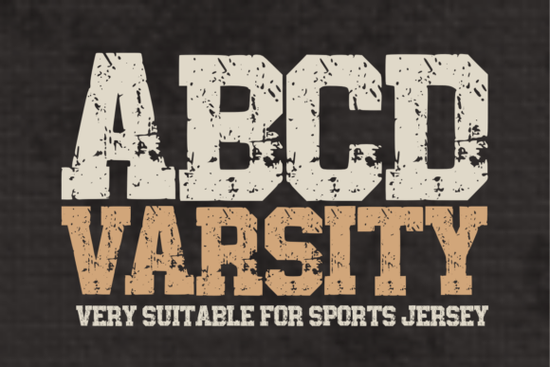
When you're looking for a font that embodies the spirit of classic sports and collegiate style, Abcd Varsity Font is a great choice. This bold, distressed sport font brings a sense of tradition and strength to any design project, making it perfect for sports jerseys, team apparel, and more.
What Makes Abcd Varsity Font Stand Out?
Abcd Varsity Font is designed with a unique, weathered texture that gives it an authentic vintage look. The thick, geometric letterforms and rugged grit make it a standout choice for anyone who wants to add a touch of nostalgia and athletic energy to their designs. Whether you're working on a college branding project or designing streetwear, this font delivers a championship performance.
Perfect For Sports and Team Apparel
If you're involved in creating designs for sports teams, Abcd Varsity Font is a natural fit. Its bold, impactful style makes it ideal for sports jerseys, team logos, and other athletic wear. The font's classic, worn-in look adds a sense of history and tradition, which can be especially appealing for established teams and clubs.
Ideal for College and University Branding
Colleges and universities often seek to capture a sense of heritage and pride in their branding. Abcd Varsity Font does just that with its traditional, yet modern feel. It’s perfect for creating banners, posters, and promotional materials that need to convey a strong, academic identity.
Streetwear and Merch Design
For designers and creators in the streetwear and merchandising space, Abcd Varsity Font offers a versatile and stylish option. Its bold, geometric shapes and distressed texture make it a popular choice for t-shirts, hats, and other merchandise. The font’s rugged look adds a cool, edgy vibe to any design, making it a favorite among streetwear enthusiasts.
Gym and Fitness Graphics
Fitness and gym graphics often require a strong, motivational tone. Abcd Varsity Font fits the bill perfectly with its robust, impactful appearance. Use it for gym signs, workout plans, and promotional materials to inspire and motivate your audience. The font’s bold, clear lettering ensures that your message stands out and resonates with fitness enthusiasts.
Trophies, Posters, and Event Banners
Whether you’re designing trophies, event posters, or banners, Abcd Varsity Font adds a touch of class and tradition. Its classic, weathered look makes it a perfect choice for recognizing achievements and celebrating special events. The font’s strong, readable characters ensure that your message is clear and memorable.
Vintage-Style Social Media Posts
In the age of social media, standing out is key. Abcd Varsity Font can help you create eye-catching, vintage-style posts that grab attention. Its distressed, classic look is perfect for adding a nostalgic touch to your social media content, whether you’re sharing a throwback photo or promoting a new product.
How to Use Abcd Varsity Font Effectively
- Choose the Right Context: Make sure the font aligns with the overall theme and purpose of your design. It works best for projects that benefit from a classic, sporty, or vintage look.
- Balance with Other Elements: While Abcd Varsity Font is bold and impactful, it’s important to balance it with other design elements. Use it for headlines or key text, but consider pairing it with a simpler, more legible font for body text.
- Experiment with Colors: The font’s distressed texture can work well with a variety of color schemes. Try using it with bold, vibrant colors for a high-impact look, or with more muted, earthy tones for a classic, timeless feel.
Final Tips for Using Abcd Varsity Font
- Test Different Sizes: Experiment with different font sizes to see what works best for your design. Larger sizes can be very effective for headlines and titles, while smaller sizes may work well for subheadings or short text blocks.
- Consider the Background: The font’s distressed texture can sometimes blend into busy backgrounds. Make sure to use a clean, simple background to ensure the text stands out and is easy to read.
- Get Feedback: Before finalizing your design, get feedback from others. Sometimes a fresh set of eyes can help you see if the font is working well and if any adjustments are needed.
By following these tips, you can effectively use Abcd Varsity Font to create designs that stand out and resonate with your audience. Whether you’re working on a sports jersey, a college banner, or a vintage-style social media post, this font is a great choice for adding a touch of tradition and strength to your projects.